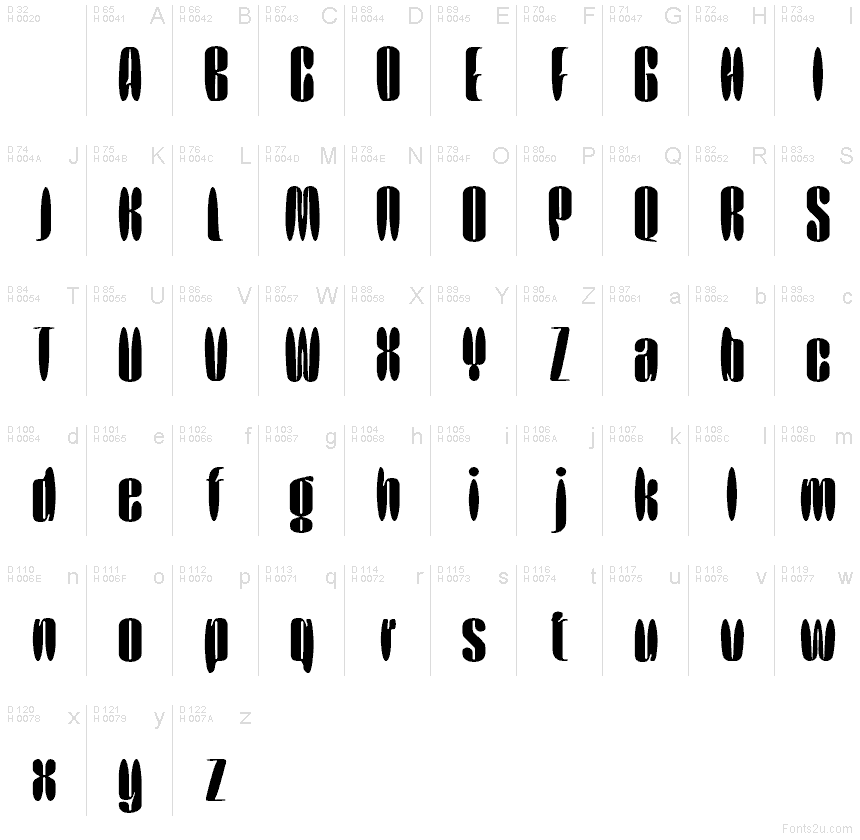
RhisonDrawn-Regular Demo
Rhison Drawn font by Craft Supply Co. is a display font with geometric, high-impact letters. Its Art Deco influences and visual rhythm build a modern appeal that evokes a sense of elegance and success, making use of both thick and thin strokes for an eye-catching appearance.